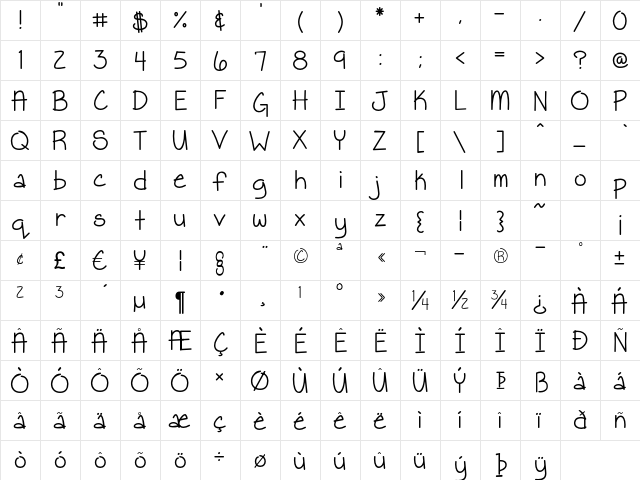
Jenn Pen Regular
Design Context for Jenn Pen Typeface
Jenn Pen offers clean, dependable letterforms without strong stylistic allegiance, making it a practical choice for designers who need flexibility.
Pro Tip: Use Jenn Pen in both headline and body roles to test its range before committing to a single application.